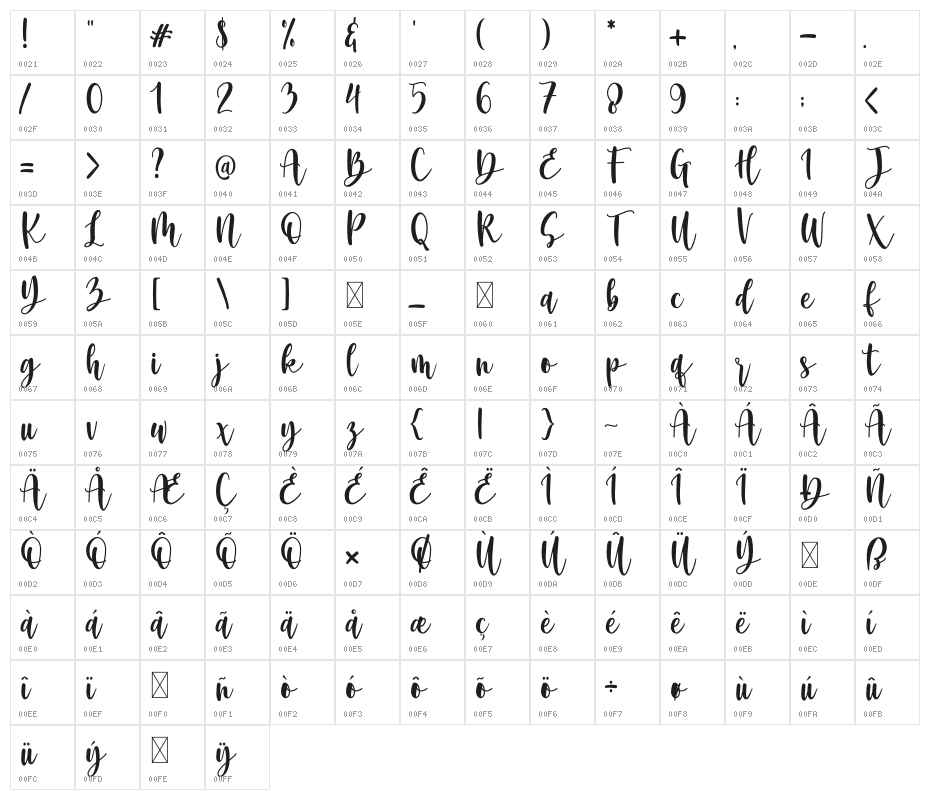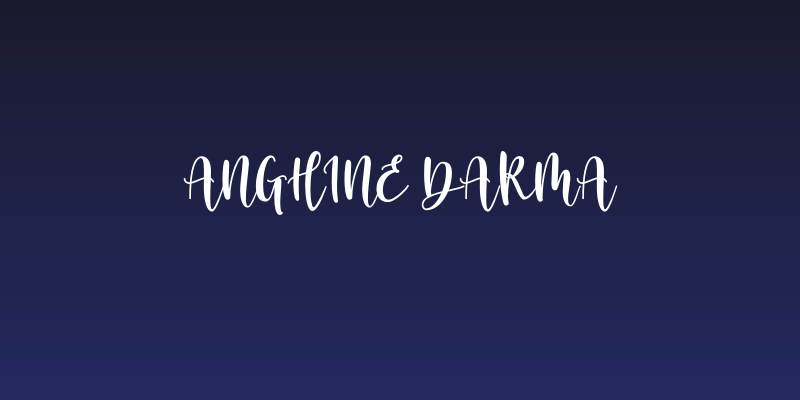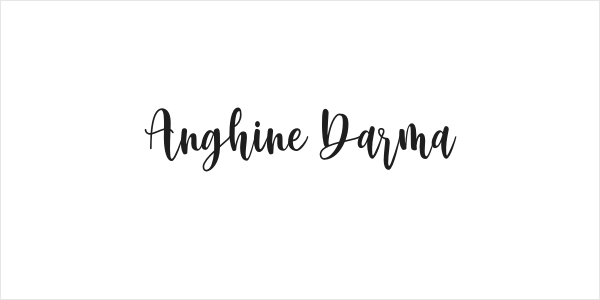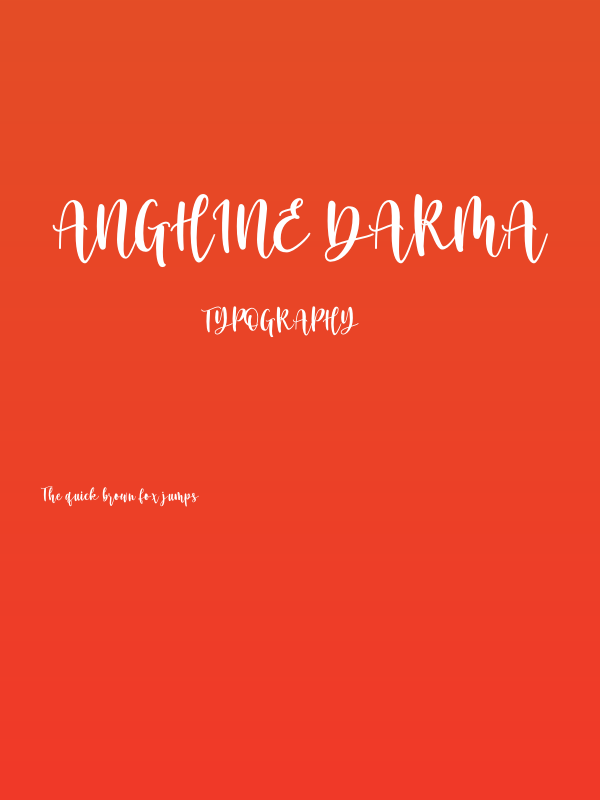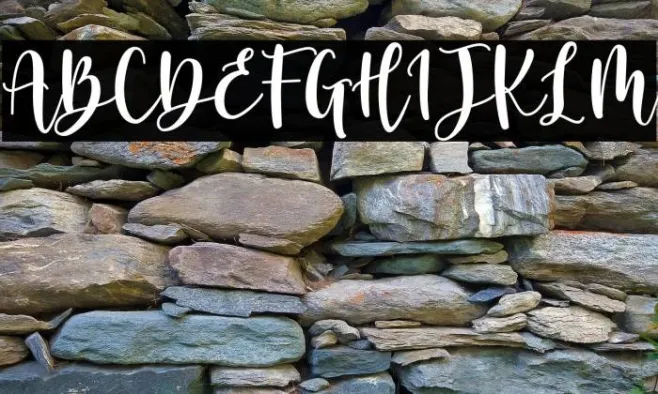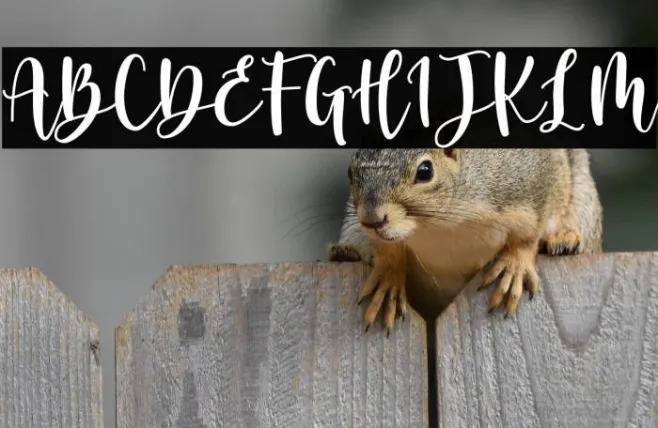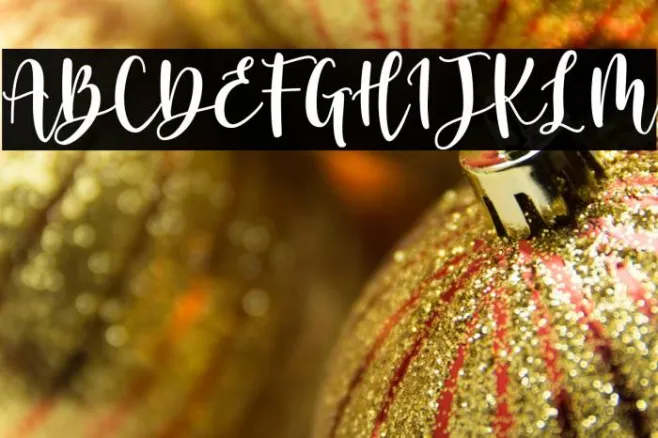
Anghine Darma Font
Anghine Darma Description
This font features a lively and expressive script style, characterized by its fluid, cursive strokes and a playful, handwritten appearance. The letters are interconnected, creating a sense of movement and flow, which is enhanced by the varying thickness of the lines. The uppercase letters are bold and dynamic, while the lowercase letters maintain a consistent rhythm, adding to the overall harmony of the design. The numerals and special characters are crafted with the same attention to detail, ensuring a cohesive look across all elements. This font exudes a sense of creativity and spontaneity, making it ideal for projects that require a personal and artistic touch.
| Use Case | Logos, Invitations, Creative projects |
| Proposed Projects | Ideal for wedding invitations, greeting cards, branding, and creative design projects that require a personal touch. |